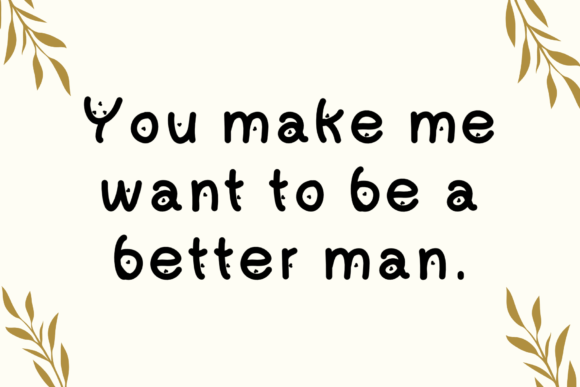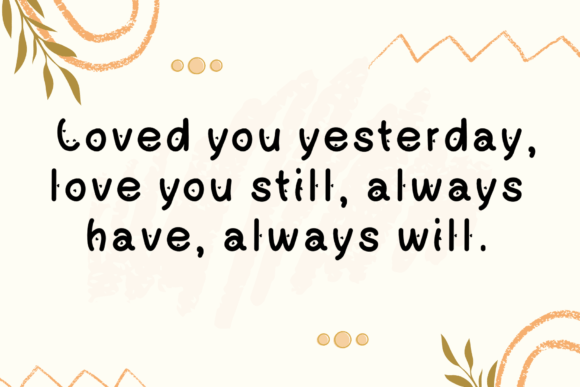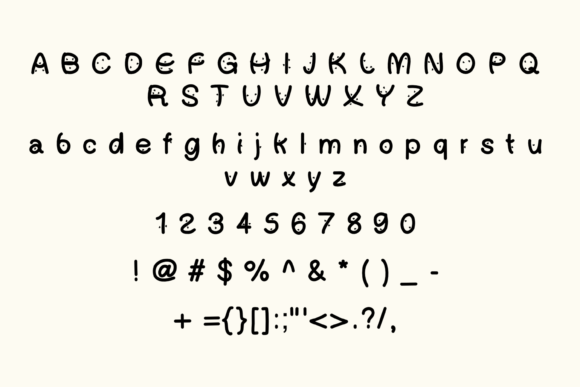
Introduction to Love in the Air Font
Have you ever been working on a creative project and suddenly the perfect font comes along, elevating your design from ordinary to extraordinary? For designers, finding the right font can be the missing piece that takes their project from good to great. And that’s exactly what happened when we discovered the enchanting Love in the Air Font.
This beautiful handwritten font has captured the hearts of designers everywhere with its romantic feel and versatility. Whether you’re working on a greeting card, creating a headline, or designing a wedding invitation, Love in the Air Font is guaranteed to add a touch of magic to your next project.
Key Features of Love in the Air Font
- High-quality design resource ideal for creative projects, with a unique, whimsical style.
- Designed to be highly legible, with clear letterforms and a consistent tone, making it suitable for a wide range of applications.
- Includes a range of characters, including uppercase and lowercase letters, numbers, and punctuation marks, making it a versatile design resource.
Honest Review: Love in the Air Font
I recently had the chance to work with the Love in the Air Font on a creative project and I must say, it’s been a game-changer. As a designer, I’m always on the lookout for high-quality design resources that can elevate my work and make it stand out. ✨
- High-quality design: The font is incredibly well-designed, with clean lines and a modern aesthetic that works perfectly for a wide range of creative projects.
That being said, there are a few limitations to be aware of: ⚠️
- Only one style: I wish there were more styles available, as it would be nice to have some variation in the font’s design.
- Not suitable for all projects: While the font works beautifully for some creative projects, it may not be the best choice for more formal or traditional designs.
Overall, I’m really impressed with the Love in the Air Font and would definitely recommend it to designers looking for a high-quality, free design resource.
Love in the Air Font is ideal for use in romantic and wedding-themed designs, as well as any project that requires a playful and whimsical touch.